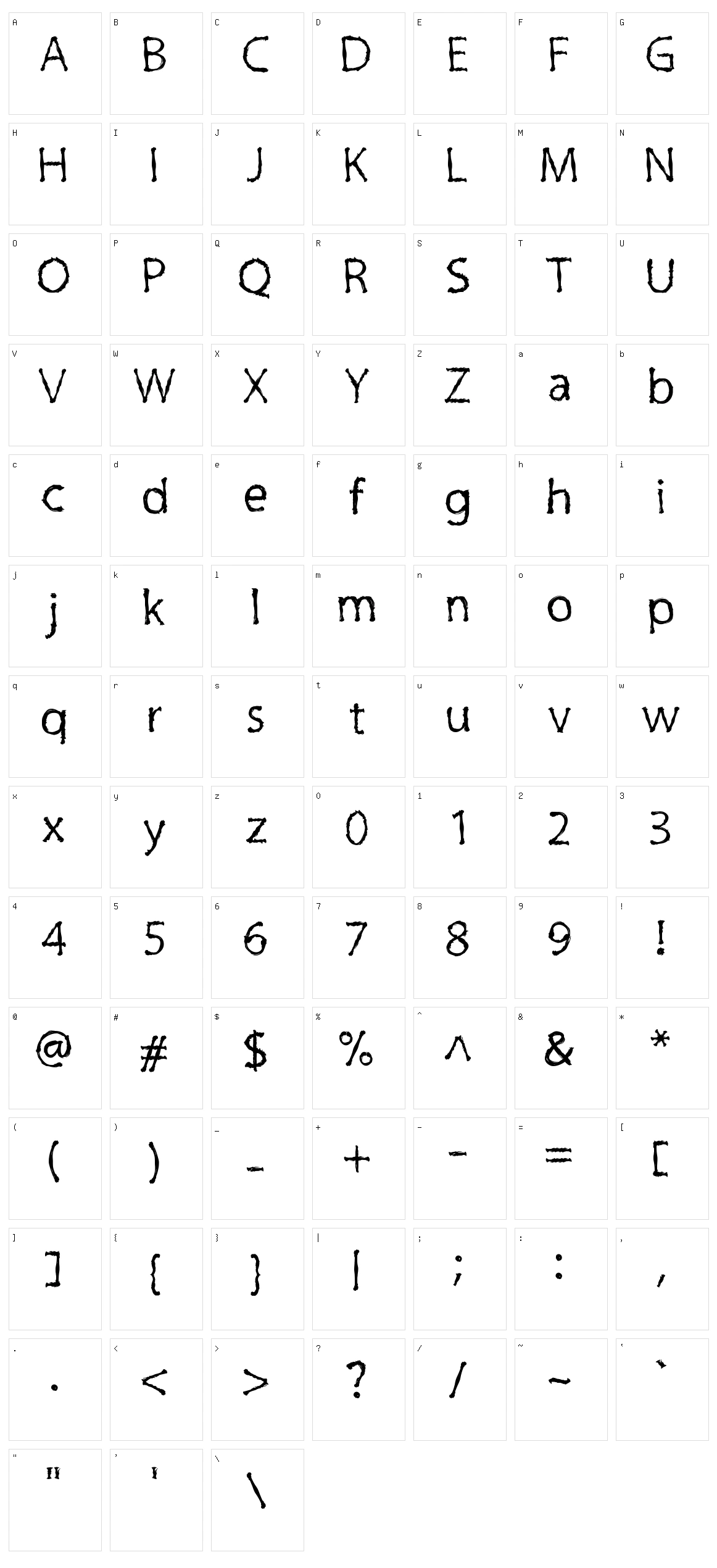
The free font Inky Cre is carefully designed by Fred Cre, showcasing a thoughtful balance of creativity and usability and falls under the Eroded font style. When you download the ZIP file, it contains only 199.44 KB of font files, making it lightweight and quick to download. Please review the license details below to understand permitted usage and distribution rights. If license information is not available, we recommend using this font for personal projects only or contacting the author directly for commercial usage permissions.